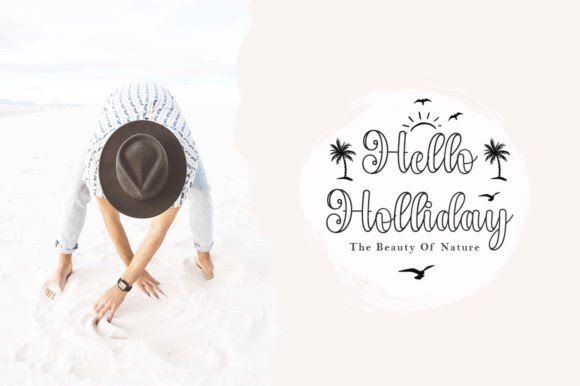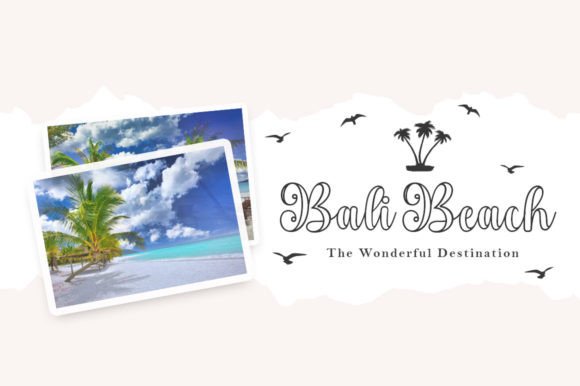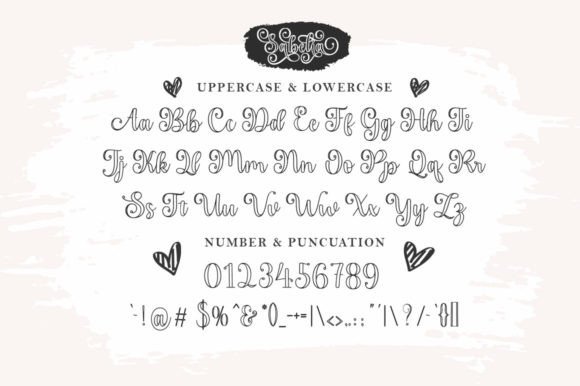
Introduction to Sabelia Outline Font Font
Fonts play a crucial role in design, and the Sabelia Outline Font font is a typeface that brings both character and versatility to any project. Whether you’re working on a branding project, a website, or a print design, the Sabelia Outline Font font offers a unique style that can elevate your work.
Sabelia Outline is a neat, beautiful, and elegant handwritten font perfect for your favorite projects.
Fun and relaxed, this font is ideal for writing wedding invitations, cards, or any other design that might need a fancy touch Fall in love with its radically different and timeless style, and use it to create spectacular designs.
Key Features of Sabelia Outline Font Font
Why Choose Sabelia Outline Font Font?
The Sabelia Outline Font font is more than just a typeface – it’s a design tool that helps you communicate your message with style and clarity. Its unique character set and versatile design make it suitable for a wide range of applications, from elegant invitations to bold headlines.
With its carefully crafted letterforms and balanced proportions, the Sabelia Outline Font font ensures readability and visual appeal across all mediums.
What makes Sabelia Outline Font font special?
The Sabelia Outline Font font stands out with its unique design, exceptional readability, and versatility across various design applications.